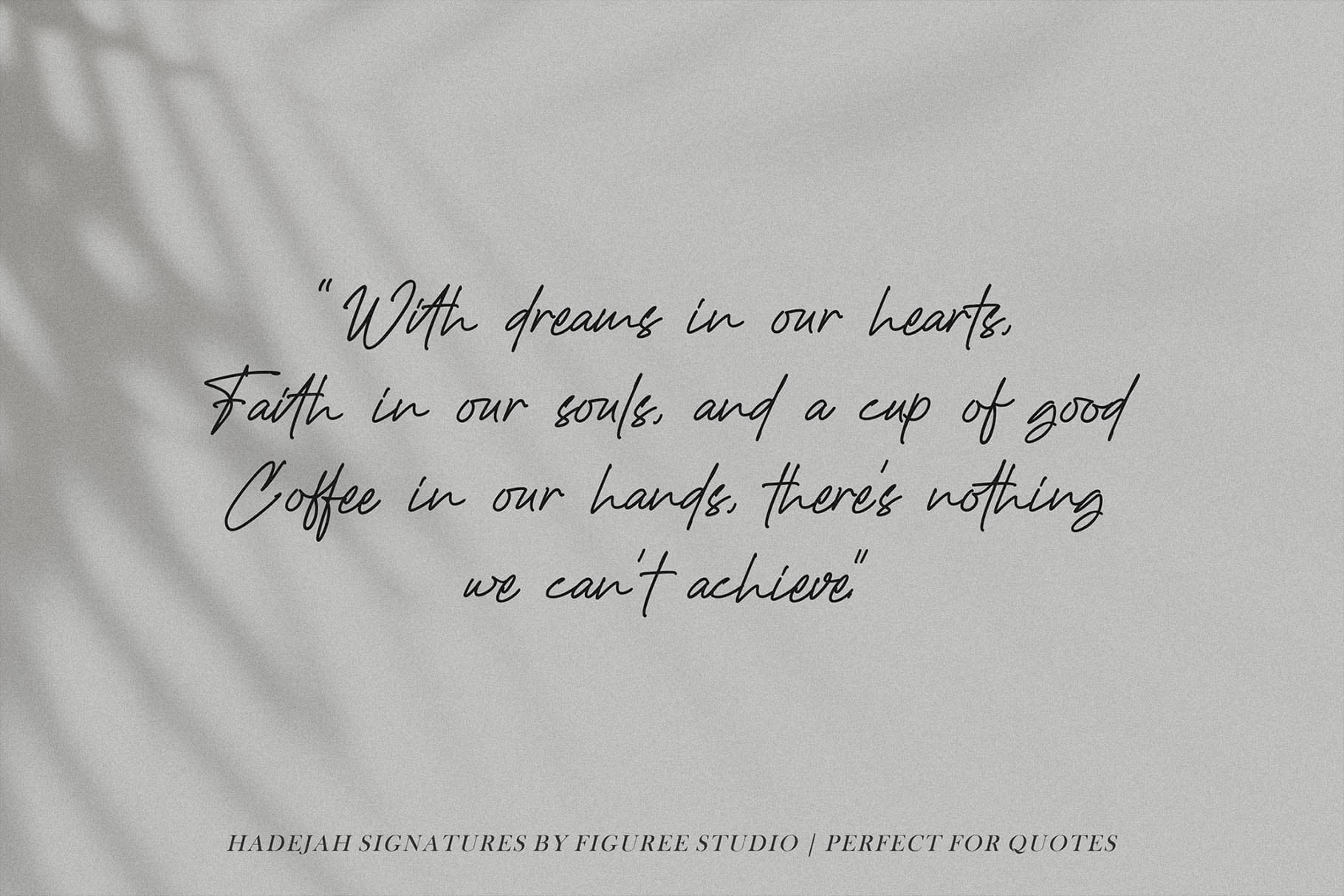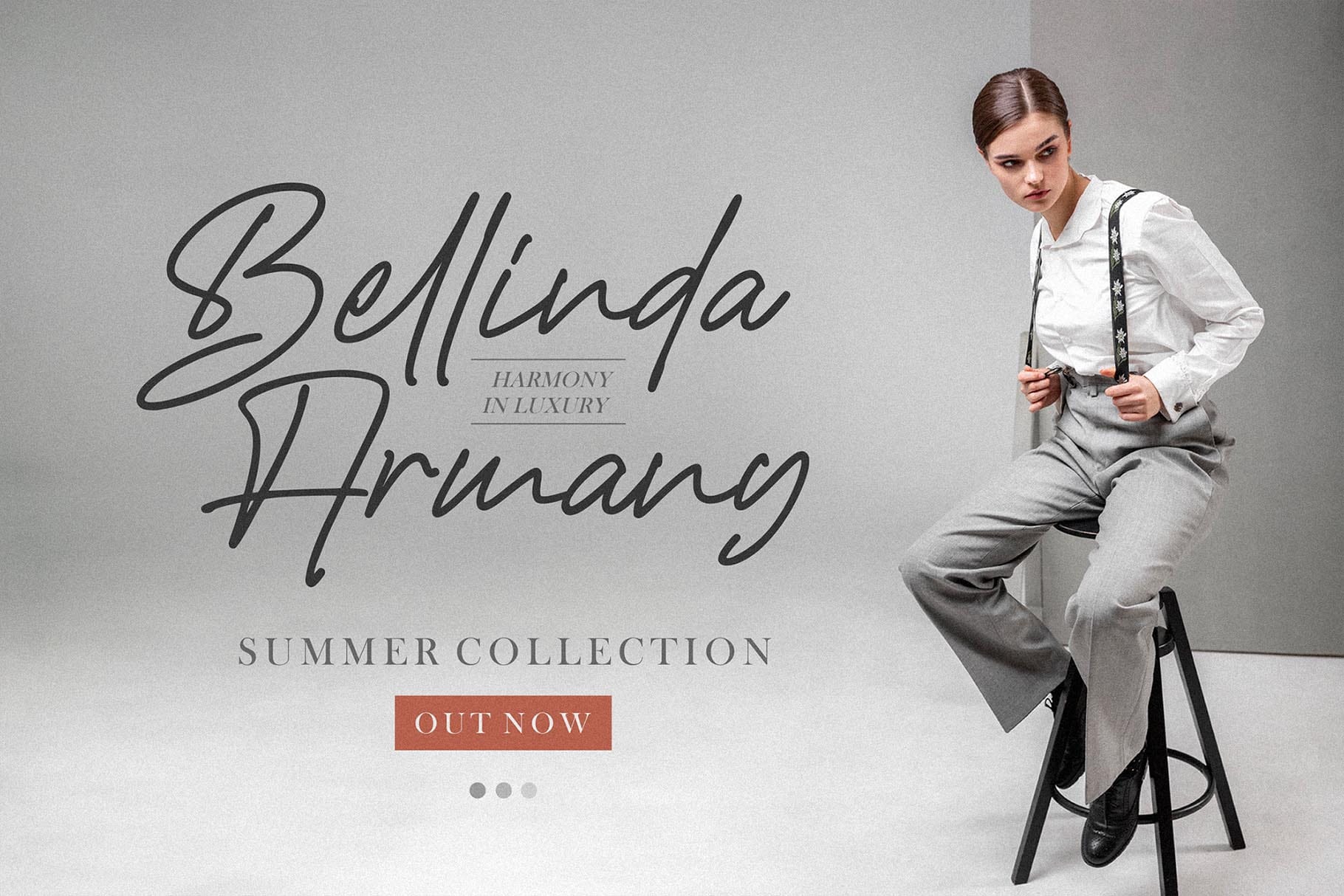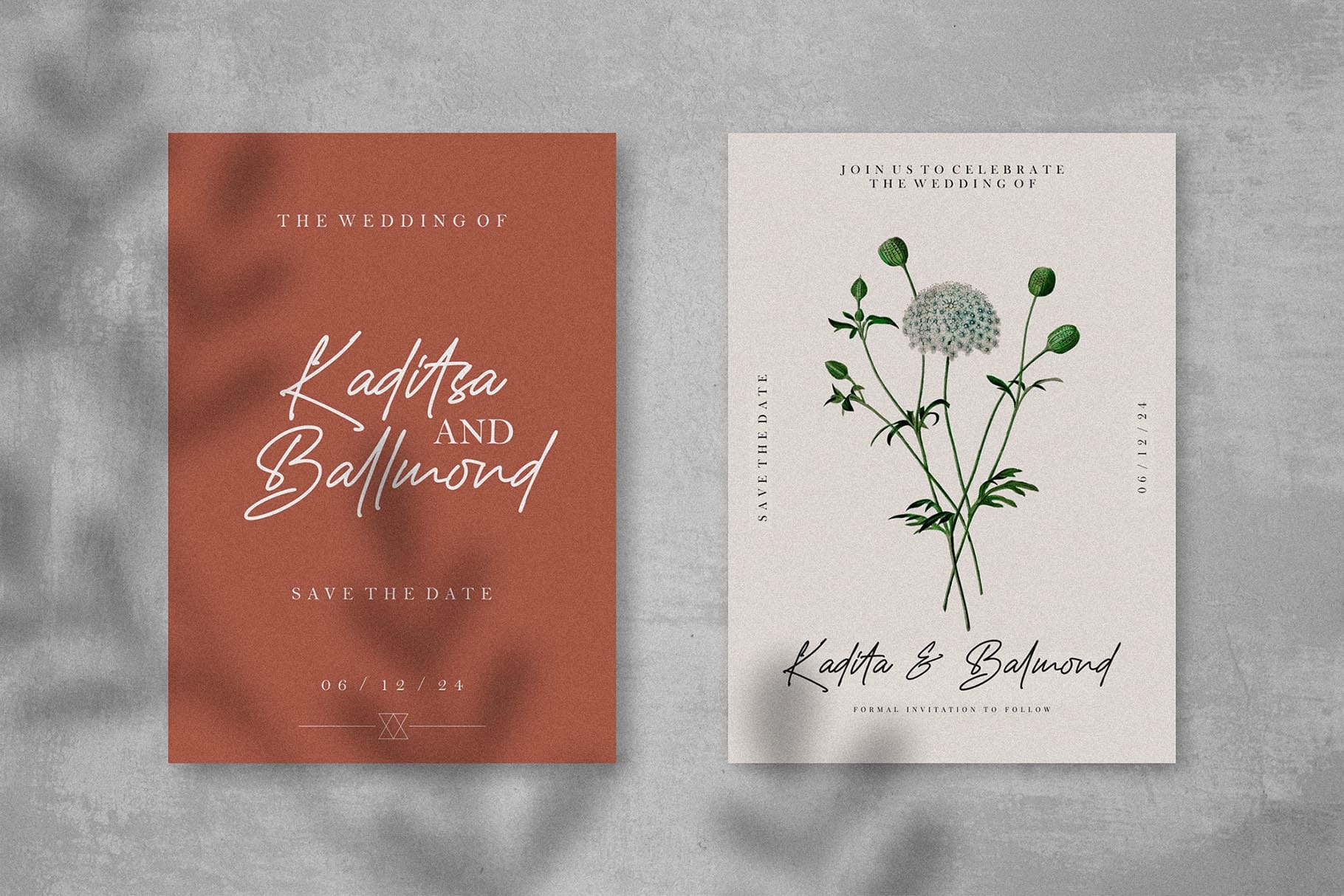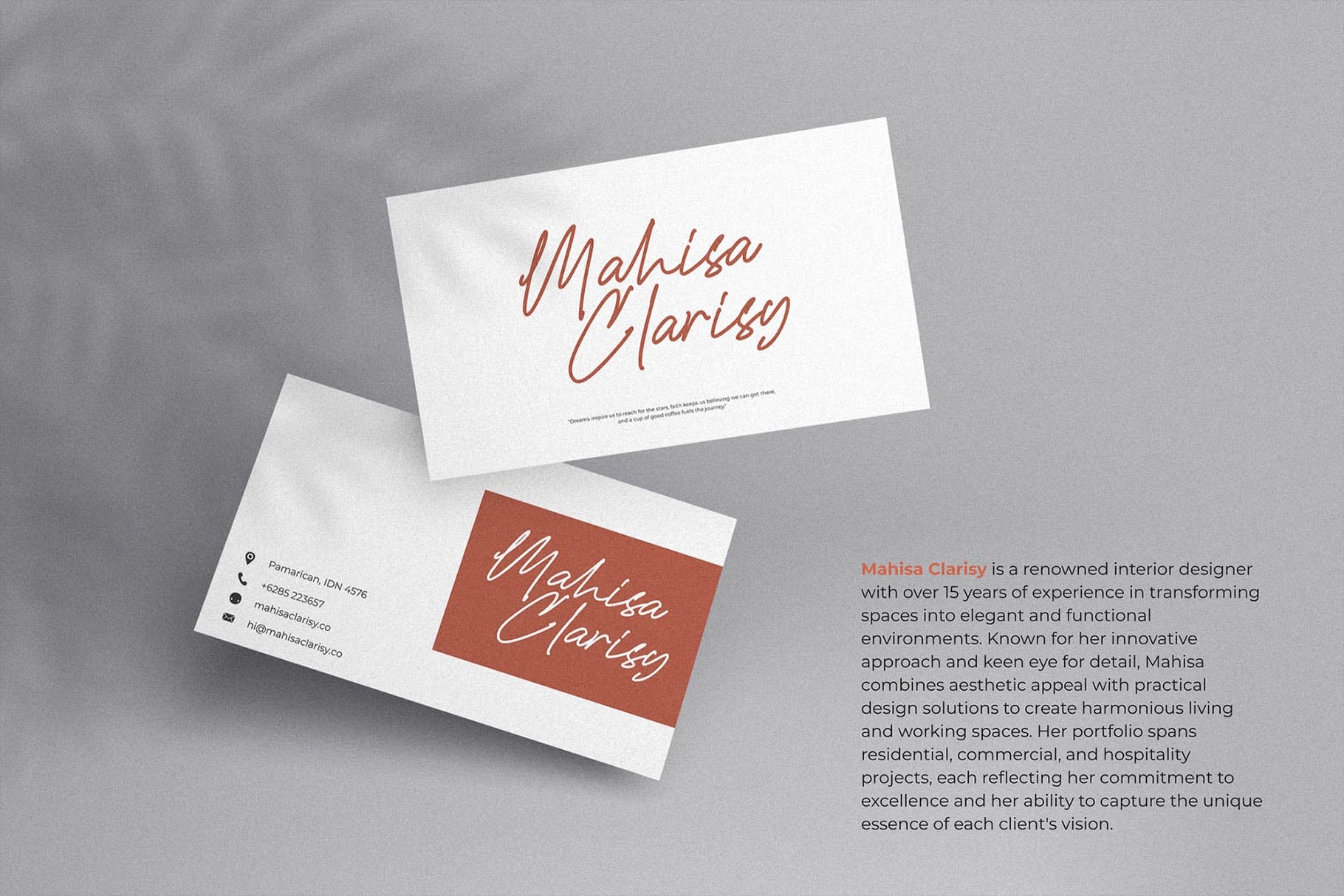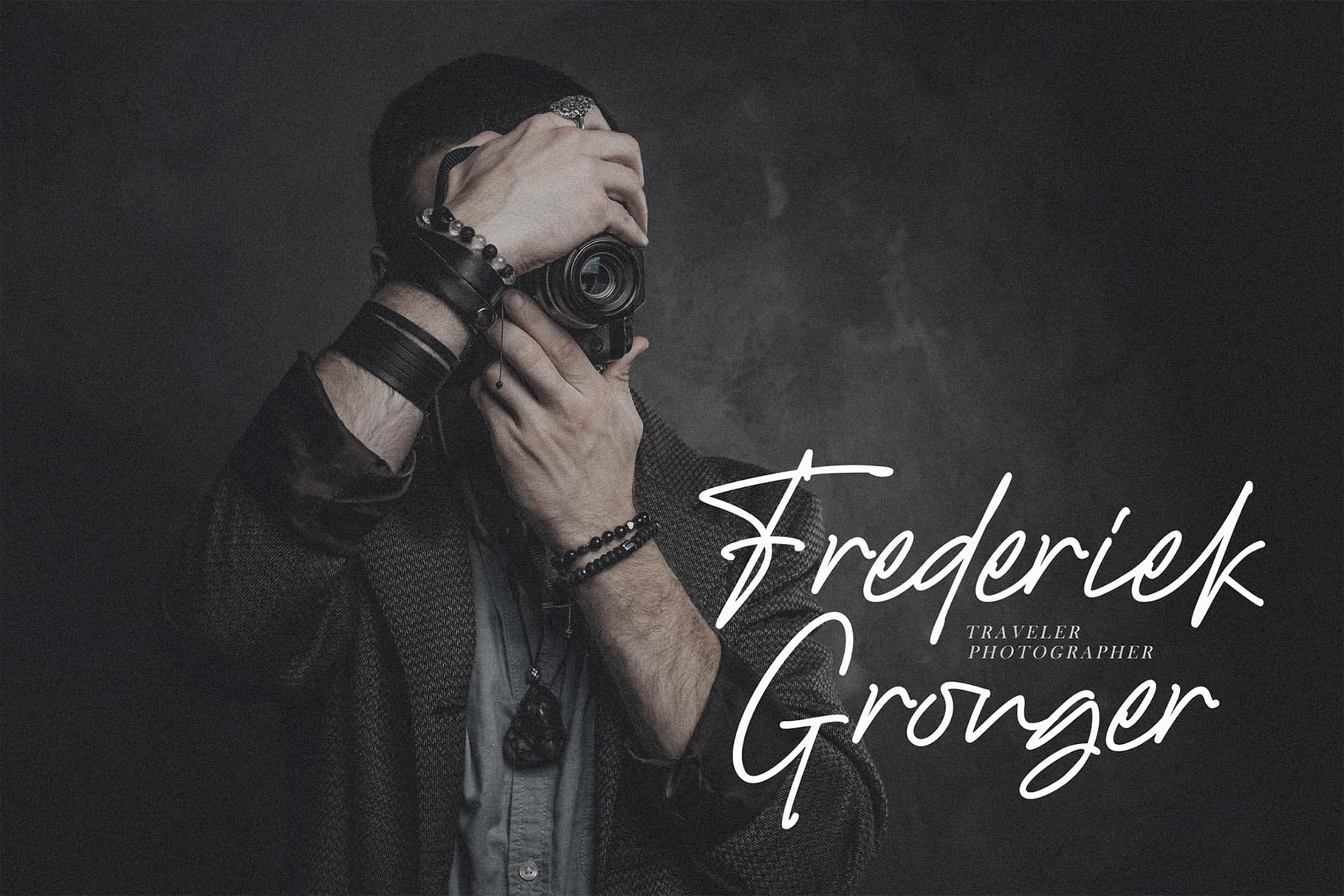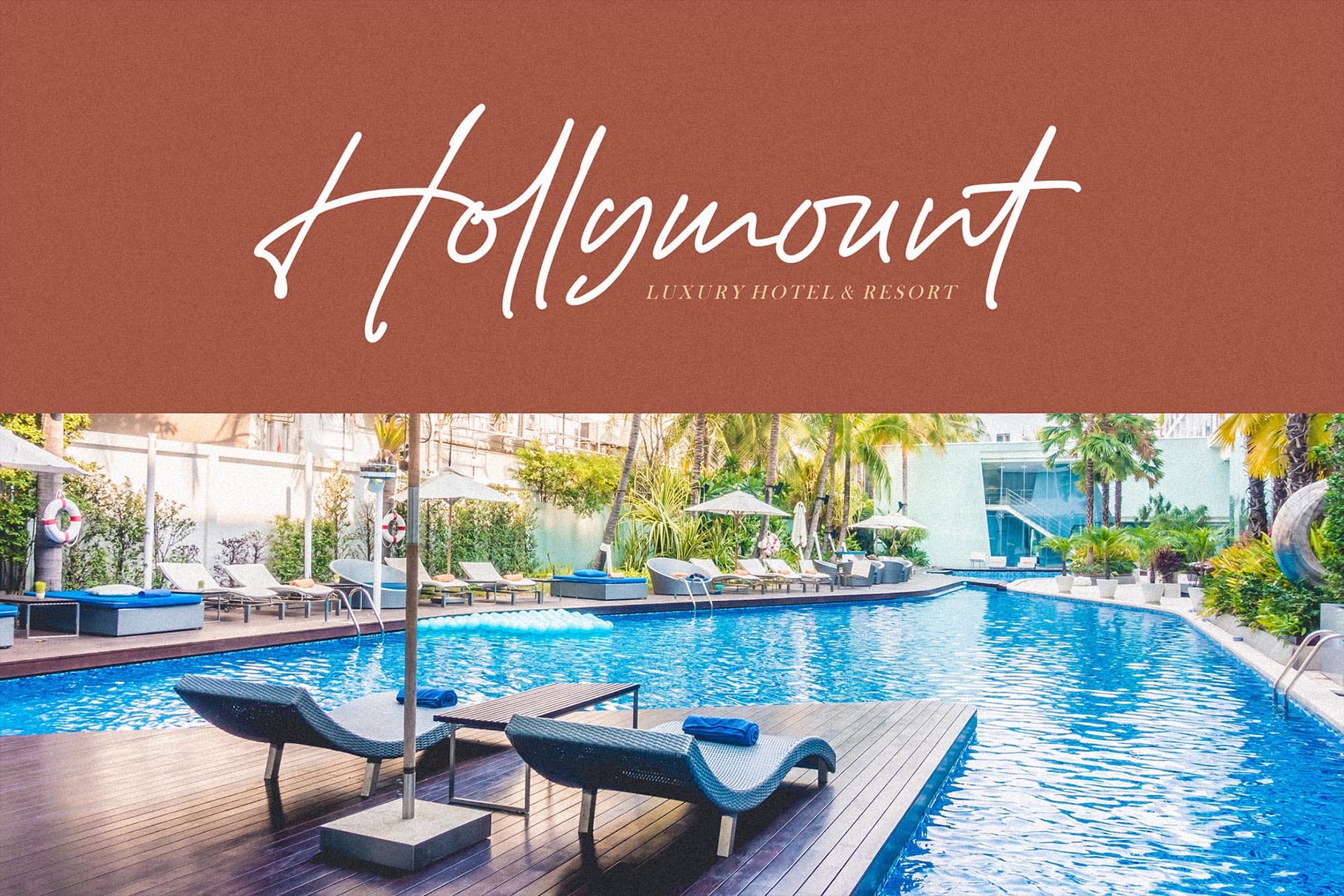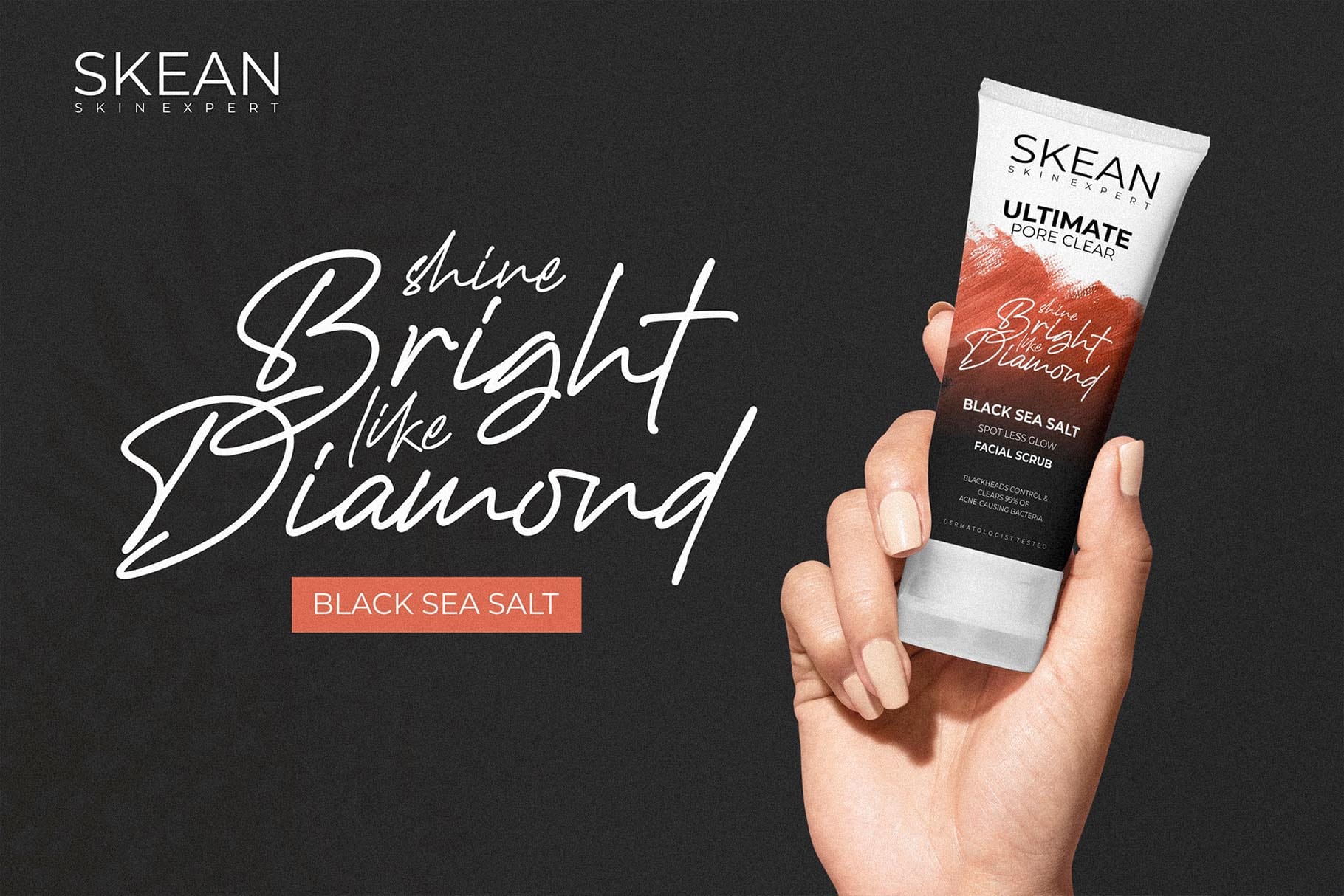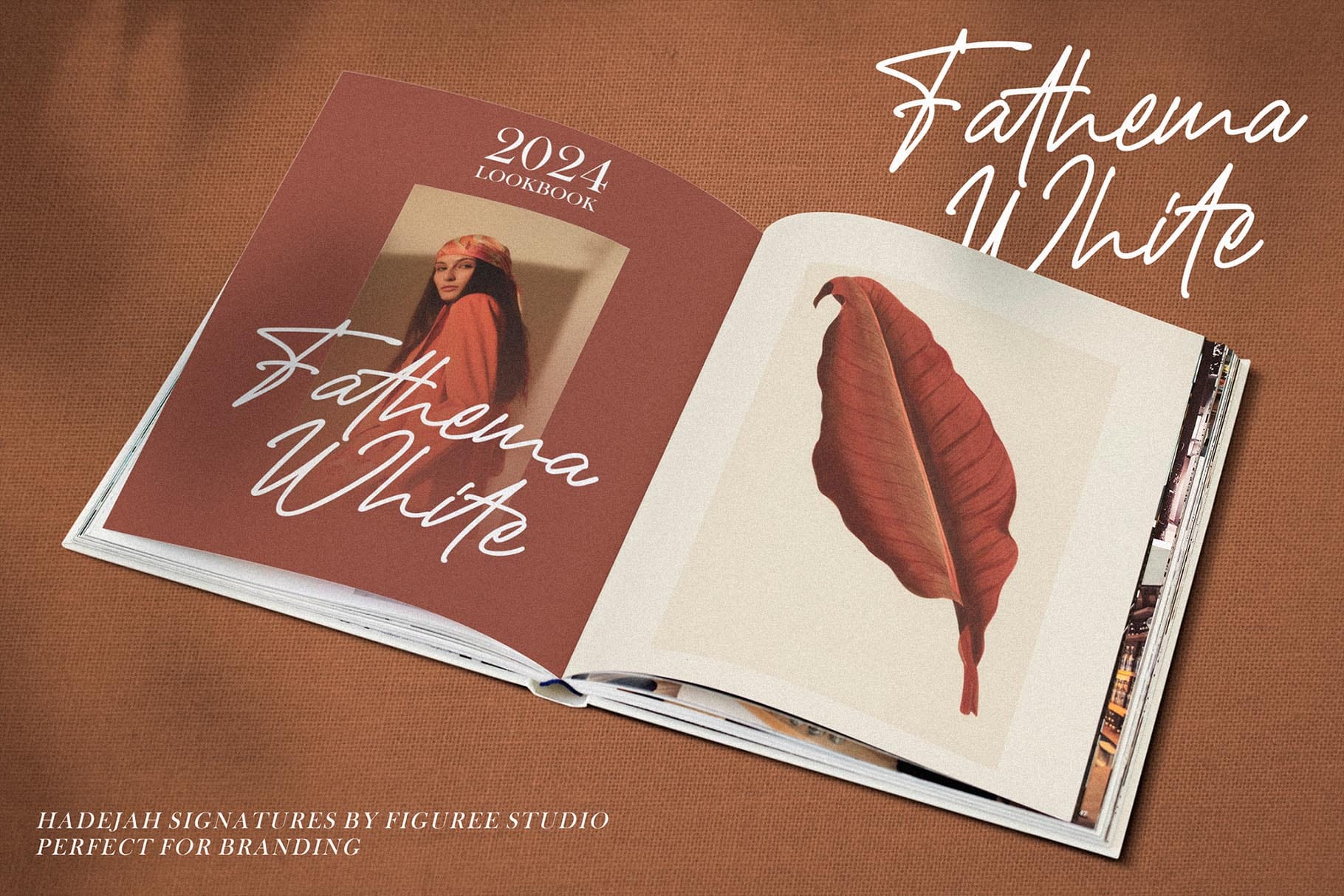
Introducing Hadejah – the ultimate Elegant Signature Font that brings sophistication and refinement to your creative projects. With its graceful strokes and exquisite design, Hadejah is perfect for adding a touch of luxury and personal flair to your work.
🌟 Timeless Elegance: Hadejah captures the beauty of handwritten signatures with its fluid, graceful lines. Each character is meticulously crafted to exude sophistication and elegance, making it ideal for projects that demand a refined and luxurious touch.
🖋️ Sophisticated Style: This font combines delicate curves with stylish flourishes, creating a seamless blend of elegance and artistry. Perfect for wedding invitations, branding, logos, and more, Hadejah ensures your message is delivered with timeless charm and elegance.
💫 Personal Touch: Hadejah’s exquisite letterforms convey a sense of personal touch and authenticity. Its elegant signature style adds a bespoke feel to your designs, making them unique and memorable.
🎨 Versatile Application: Whether you’re designing for print or digital media, Hadejah adapts seamlessly to various applications. Its versatile style is perfect for a wide range of creative projects, from elegant stationery and luxurious packaging to sophisticated social media graphics and eye-catching website headers.
✨ Captivating Statements: Hadejah is designed to captivate. Its elegant and flowing letterforms ensure your text captures attention and leaves a lasting impression. Use it for headlines, titles, and other prominent elements to create visually stunning and memorable designs.
Elevate your designs with Hadejah – the Elegant Signature Font that combines grace and sophistication. Perfect for making a timeless and luxurious impact, Hadejah is your go-to font for adding a touch of elegance and personal flair to any project.
- 60 Unique Ligatures